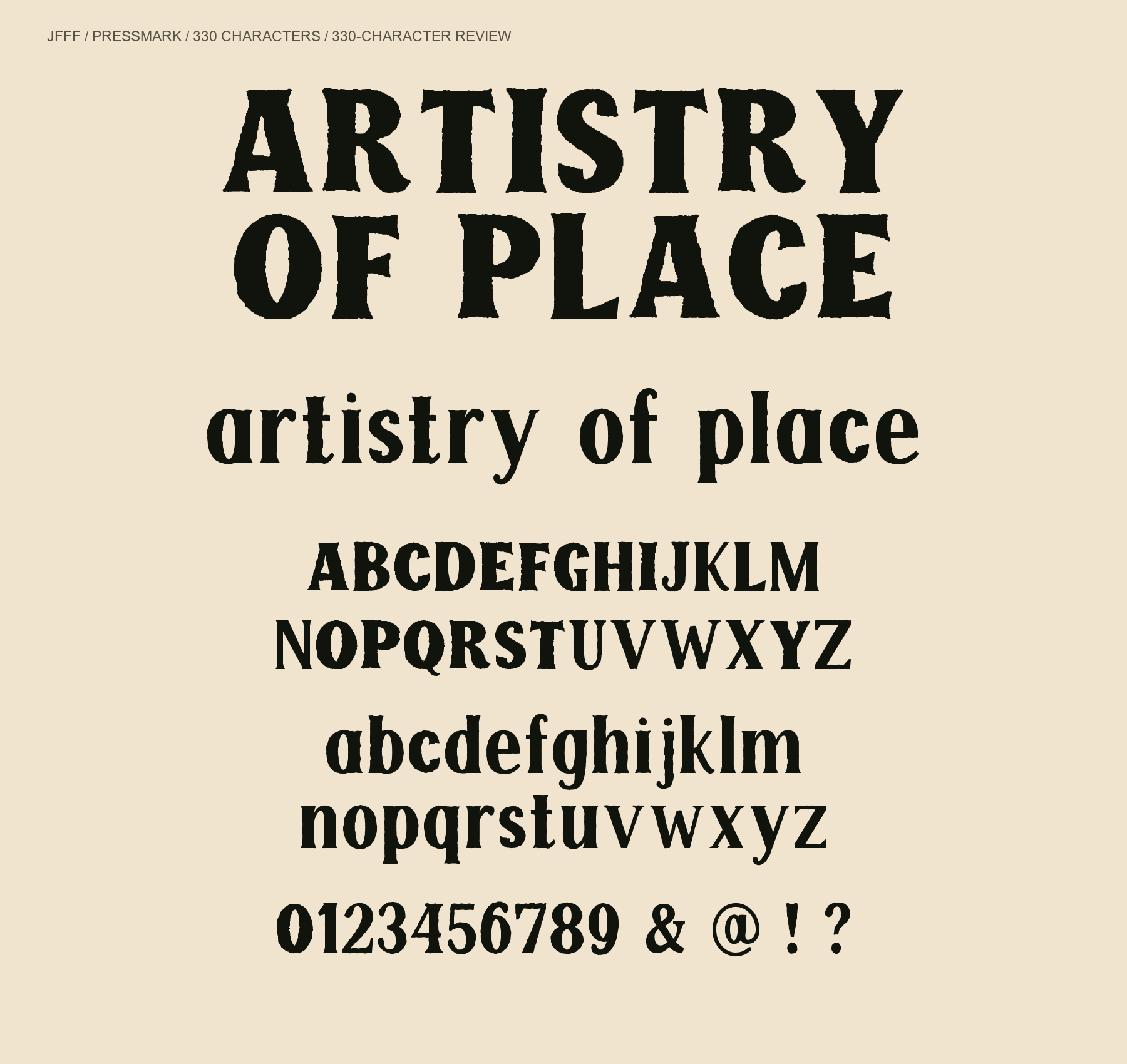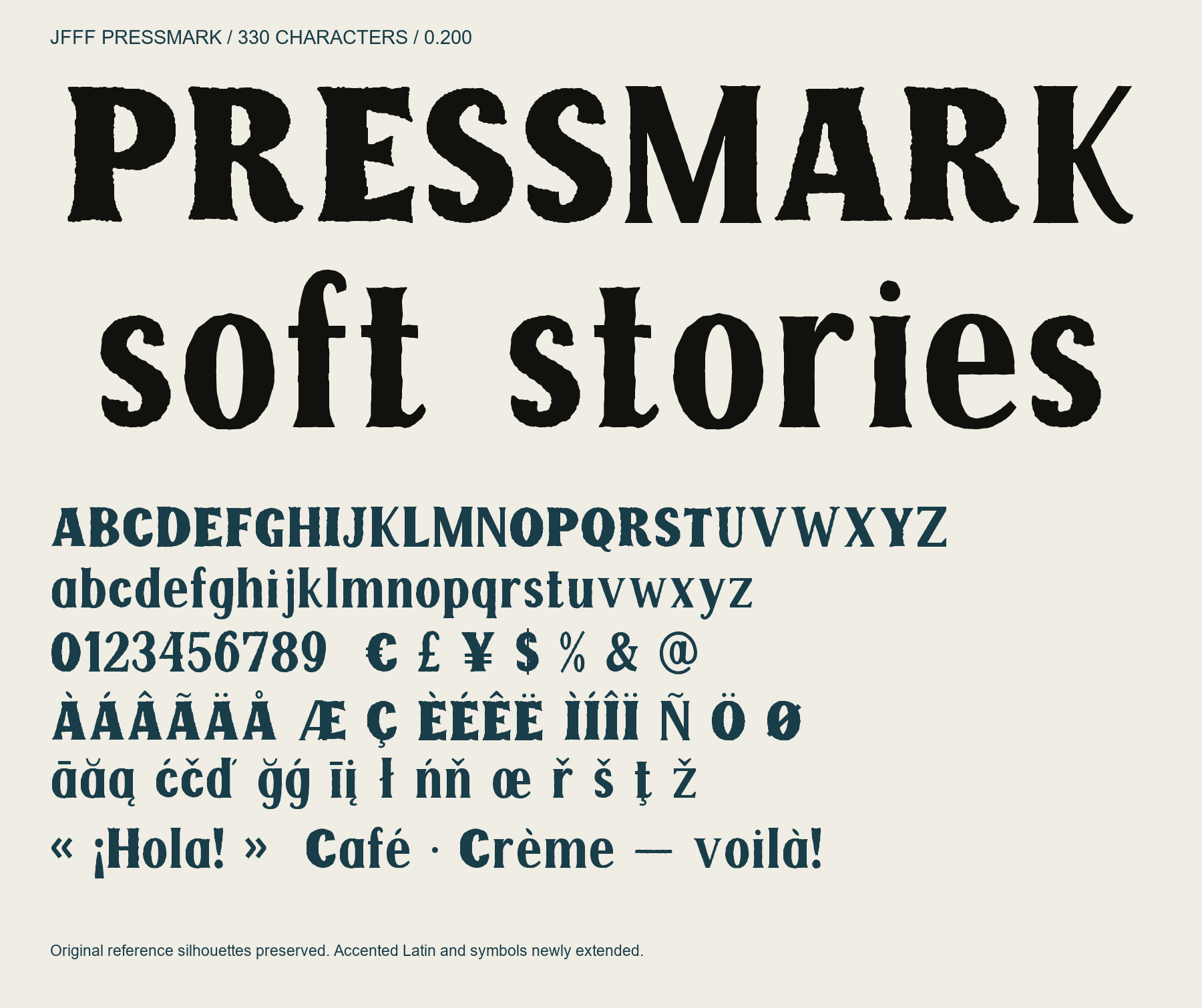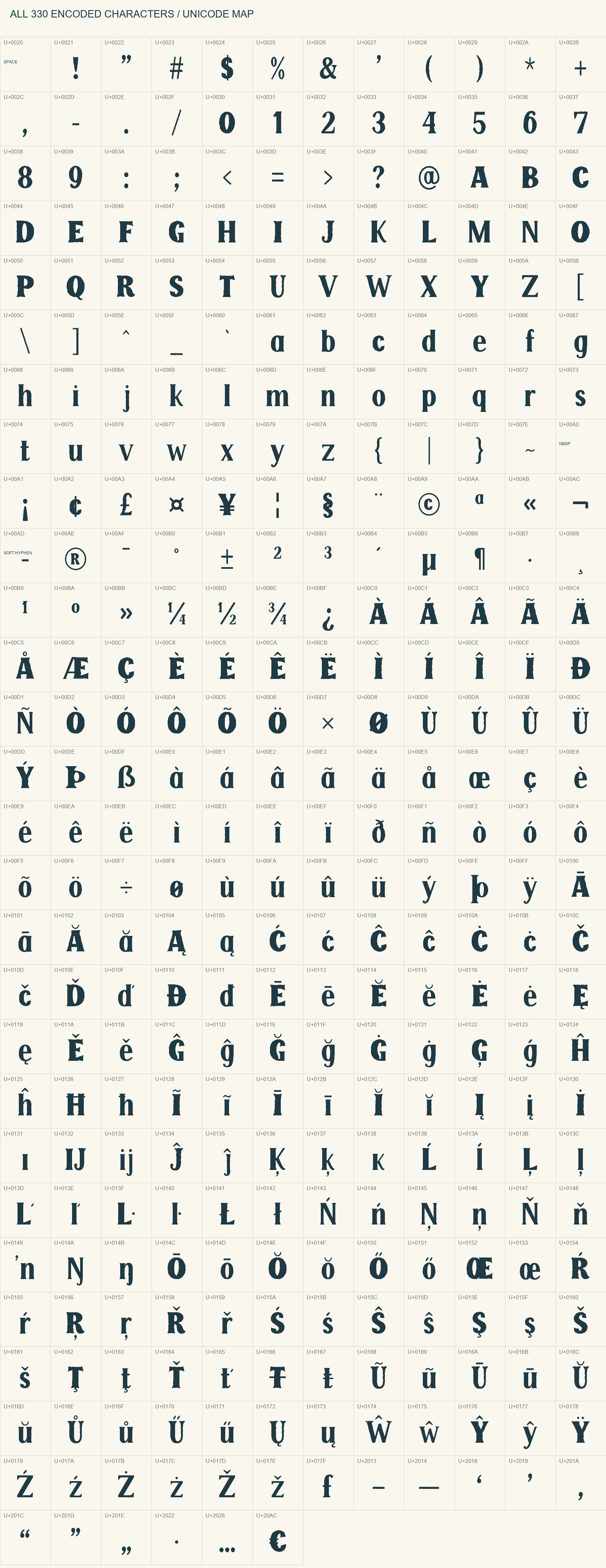
Free distressed block font
PRESSMARK condensed heavy serif: ARTISTRY OF PLACE.
Artistry in every impression. PRESSMARK is a condensed heavy display serif with compact wedge-shaped serifs, narrow counters, expressive curved legs and irregular printed edges. Designed for posters, editorial headlines and packaging at 48–120 pt. Version 0.200 design preview contains 330 encoded characters and 331 glyphs: Basic Latin, Latin-1, Latin Extended-A and selected punctuation, including spaces. Uppercase, lowercase, figures, symbols and accented letters were reviewed in enlarged specimens; joins, ligatures and accent placement were refined. Some auxiliary capitals and lowercase letters still vary in weight and optical consistency. Precomposed Latin accents are supported; Hangul and independent combining marks are not included. Native editing-app installation and physical print workflows have not been verified. Download includes TTF and SIL OFL 1.1.